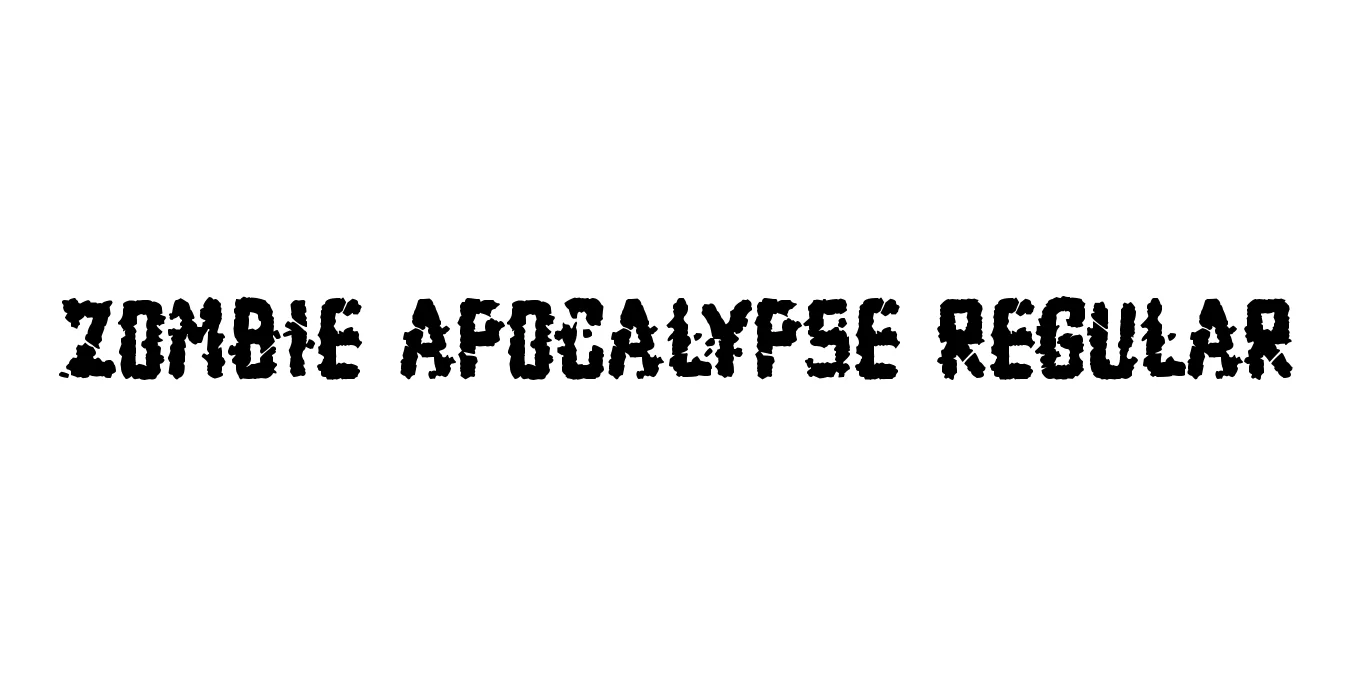
Zombie Apocalypse Regular
Designed by Skyhaven
| Category | Horror / Display |
Zombie Apocalypse Regular is a distressed, horror-themed typeface designed to evoke feelings of dread and decay. With its eroded edges and uneven strokes, it mimics the aesthetic of hand-painted warnings or deteriorating signage often found in post-apocalyptic settings. The font effectively communicates a sense of urgency and chaos, making it a favorite for projects that require a gritty, unpolished look.
This typeface has become a staple in the horror and thriller genres, frequently appearing on movie posters, book covers, and Halloween-themed marketing materials. Its gritty texture and weathered appearance provide a visceral impact that captures the essence of survival horror and dark fantasy, ensuring your designs stand out with a haunting presence.
Zombie Apocalypse Regular Best Uses
Perfect for high-impact titles in horror, thriller, or survival-themed films.
Excellent for title screens, survival horror UI elements, and loading screens.
Ideal for edgy apparel, band posters, and alternative lifestyle branding.
Great for haunted house flyers, Halloween parties, and themed event invitations.